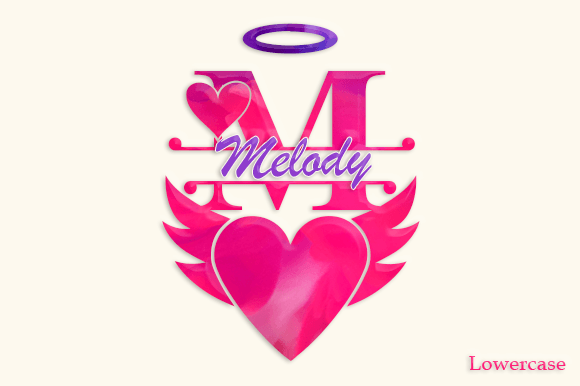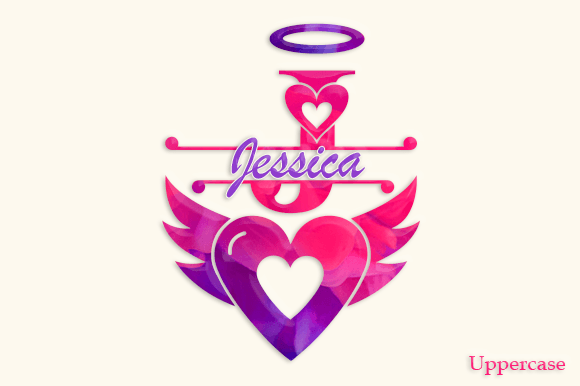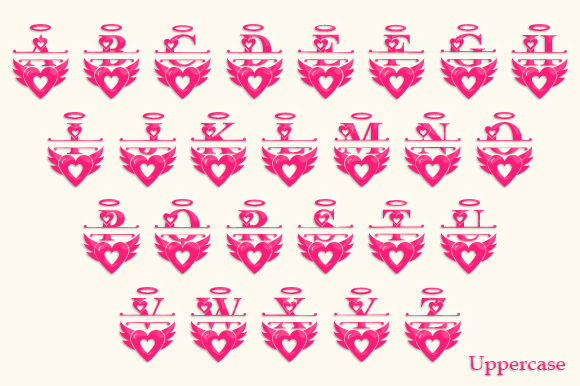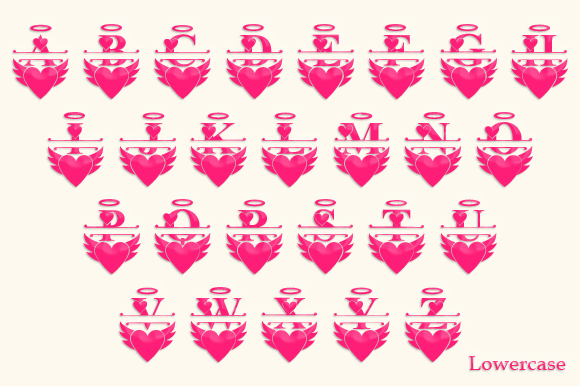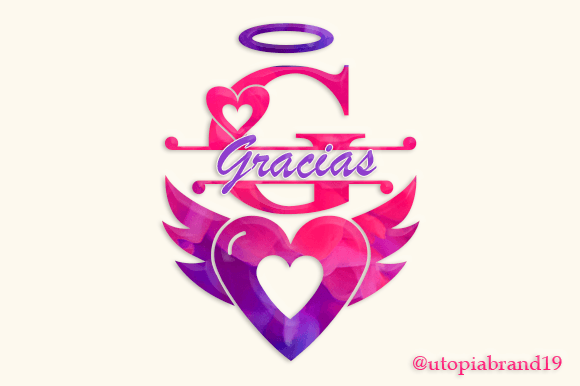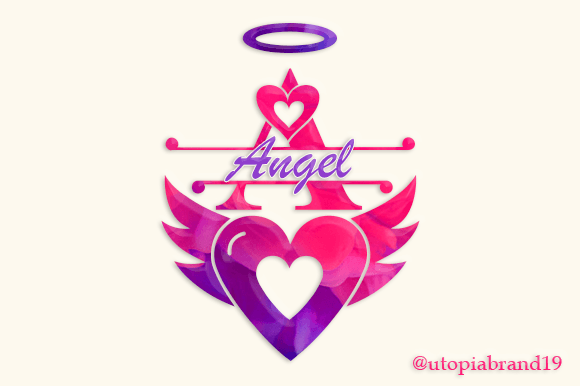
The Angel Monogram Font: A Heavenly Addition to Your Design Toolkit
I’ll never forget the time I was working on a wedding invitation project, and my client asked for a font that was “whimsical, elegant, and downright angelic.” I scoured the internet, tried out dozens of fonts, but nothing seemed quite right. That was until I stumbled upon the Angel Monogram Font. It was love at first sight! ✨
This adorable decorative font features lovely ornaments that add a touch of magic to any design. In this article, I’ll share my honest review of the Angel Monogram Font, provide a step-by-step guide on how to use it on various platforms, and explore similar fonts that you might enjoy.
- ✨ Adorable ornaments and swashes that add a touch of elegance to any design
- ✅ Authentic feel that’s perfect for creating unique wedding invitations, stationery art, and greeting cards
- 💕 Highly versatile and can be used for a variety of design projects, from social media posts to branding materials
While the Angel Monogram Font is a stunning addition to any design toolkit, there are a few things to keep in mind: 🤔
- ⚠️ Some users may find the font a bit finicky when it comes to kerning and spacing
- ⚠️ Limited availability of certain characters and glyphs, which can be a bit frustrating for designers who like to experiment
The Story Behind the Angel Monogram Font
The Angel Monogram Font was designed by a talented typographer who wanted to create a font that captured the essence of whimsy and elegance. Inspired by vintage wedding invitations and ornate stationery, this font is perfect for designers who want to add a touch of magic to their designs. 📚
| Font Name | Angel Monogram Font |
| Author | utopiabrand19 |
Q: What is the Angel Monogram Font?
A: The Angel Monogram Font is a decorative font featuring lovely ornaments and swashes, perfect for creating unique wedding invitations, stationery art, and greeting cards.